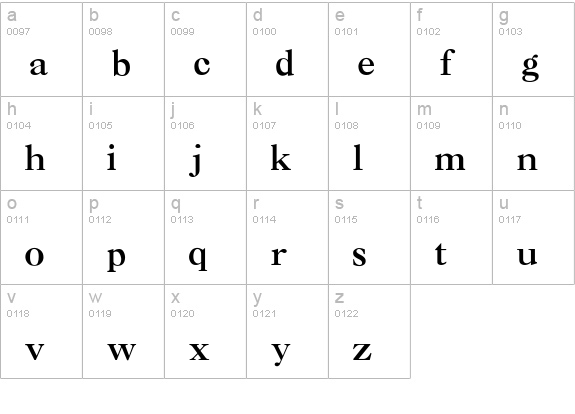
Caslon-Bold Font Details
Caslon-Bold is a strong, high-contrast variant in the Caslon typeface family \xE2\x80\x94 well suited to headlines, attention-grabbing titles, and strong calls-to-action.
Caslon-Bold is a classic and timeless font that exudes elegance and sophistication. With its bold weight, it commands attention and makes a strong statement in any design. The thick strokes and distinctive serifs give Caslon-Bold a sense of authority and presence on the page. This versatile font is perfect for headlines, titles, and other display purposes where you want to make a bold impact. Its clean lines and balanced proportions make it easy to read, ensuring that your message gets across loud and clear. Caslon-Bold is a must-have in any designer's toolkit, and the best part is that it is available for free download at FontsMarket.com. So why wait? Add this powerful and stylish font to your collection today and take your designs to the next level.